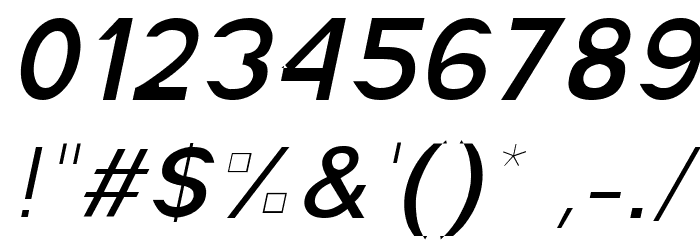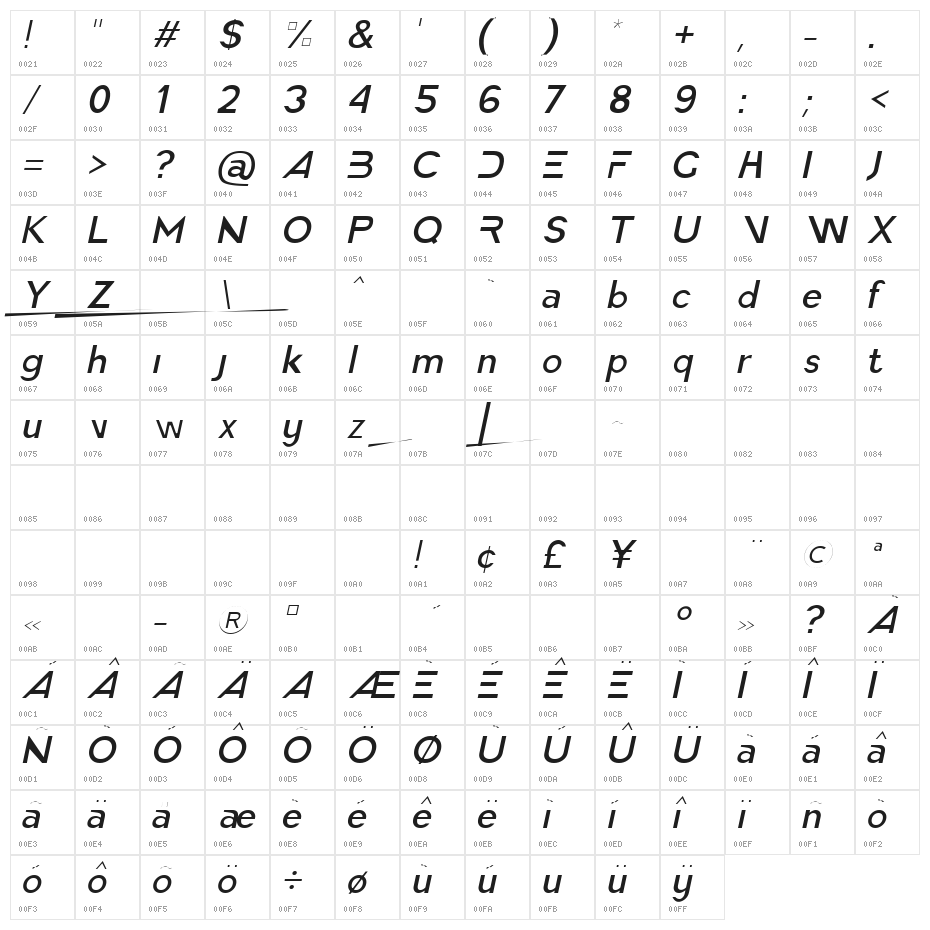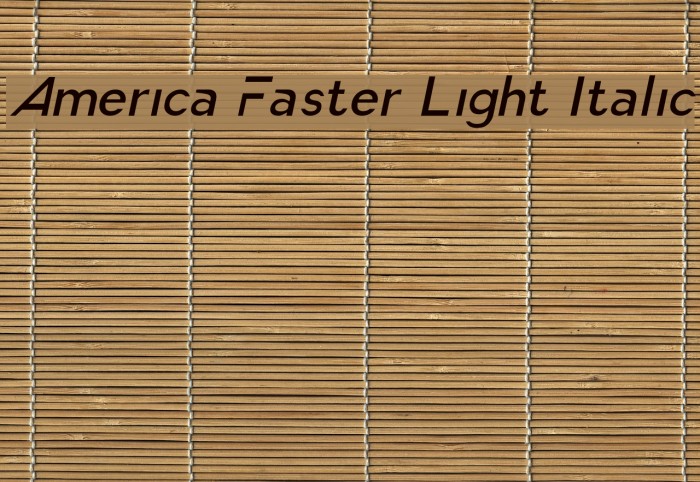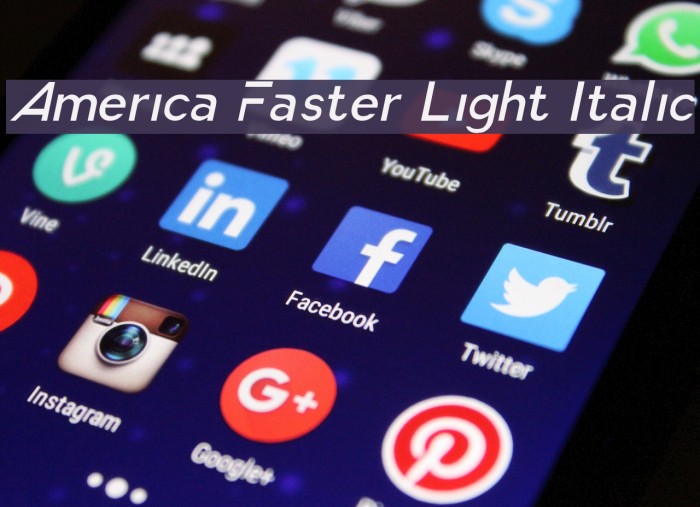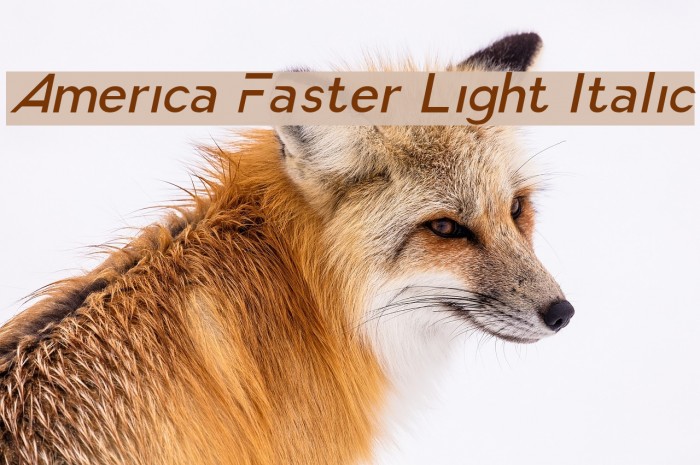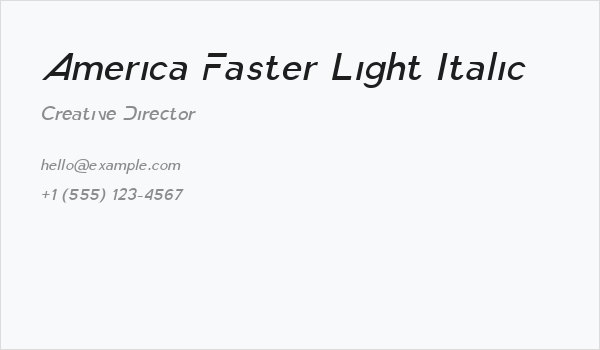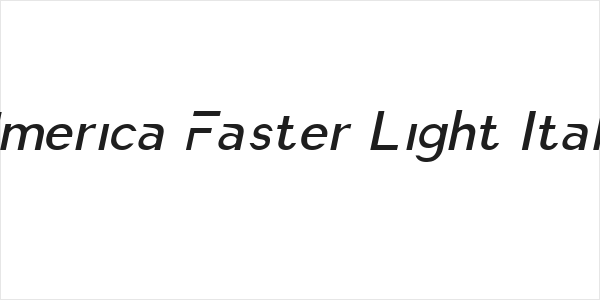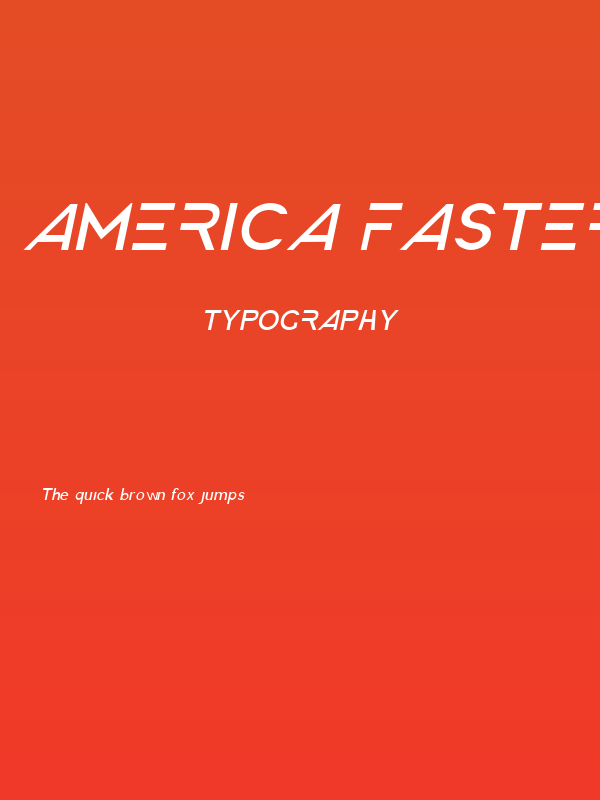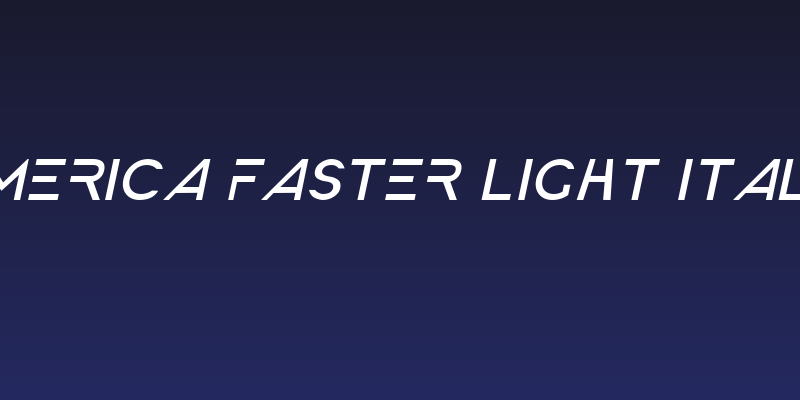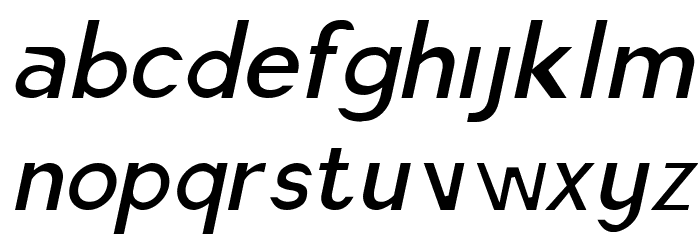
America Faster Light Italic Font
America Faster Light Italic Description
This font features a sleek, modern design with a distinct italic slant, giving it a dynamic and forward-moving appearance. The characters are crafted with a light weight, emphasizing a clean and airy feel. The sans-serif style ensures a minimalist and contemporary look, suitable for various digital and print applications. The spacing between characters is moderately tight, contributing to a cohesive and streamlined visual flow. The font exhibits low contrast in stroke thickness, maintaining uniformity across all characters. Its overall style is modern and versatile, making it an excellent choice for projects that require a fresh and innovative aesthetic.
| Proposed Projects | Ideal for tech branding, modern websites, app interfaces, and innovative product packaging. |